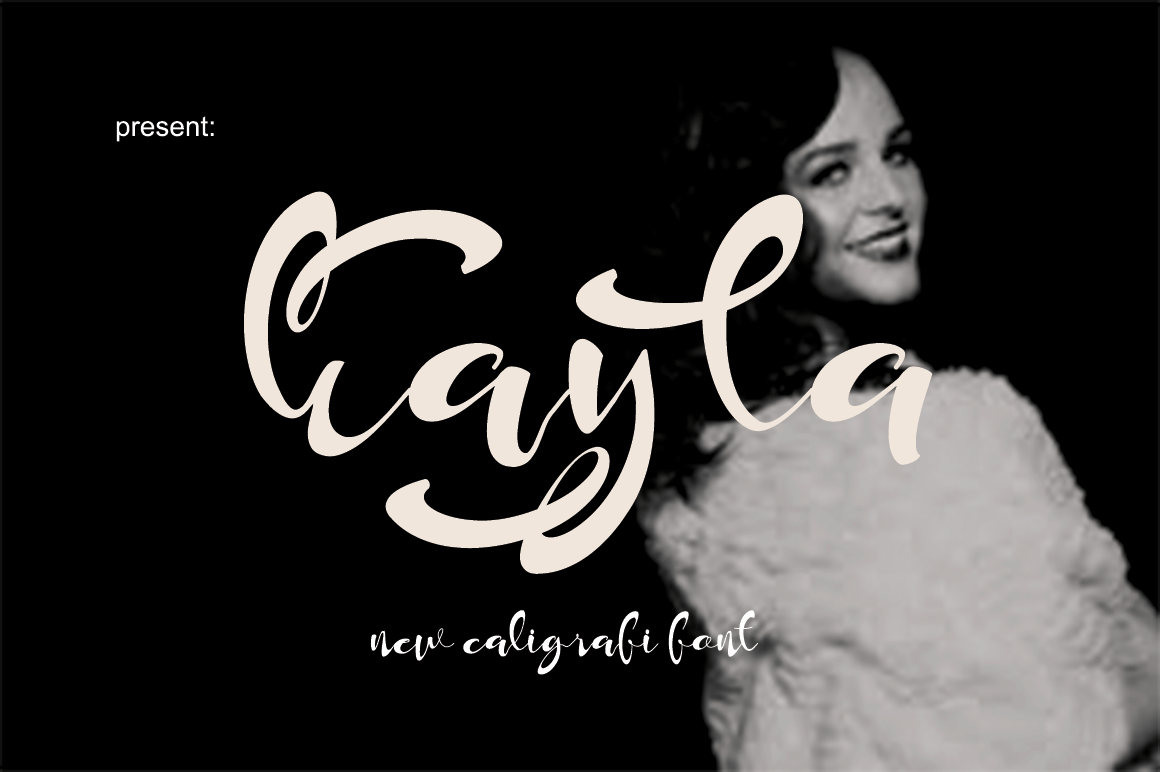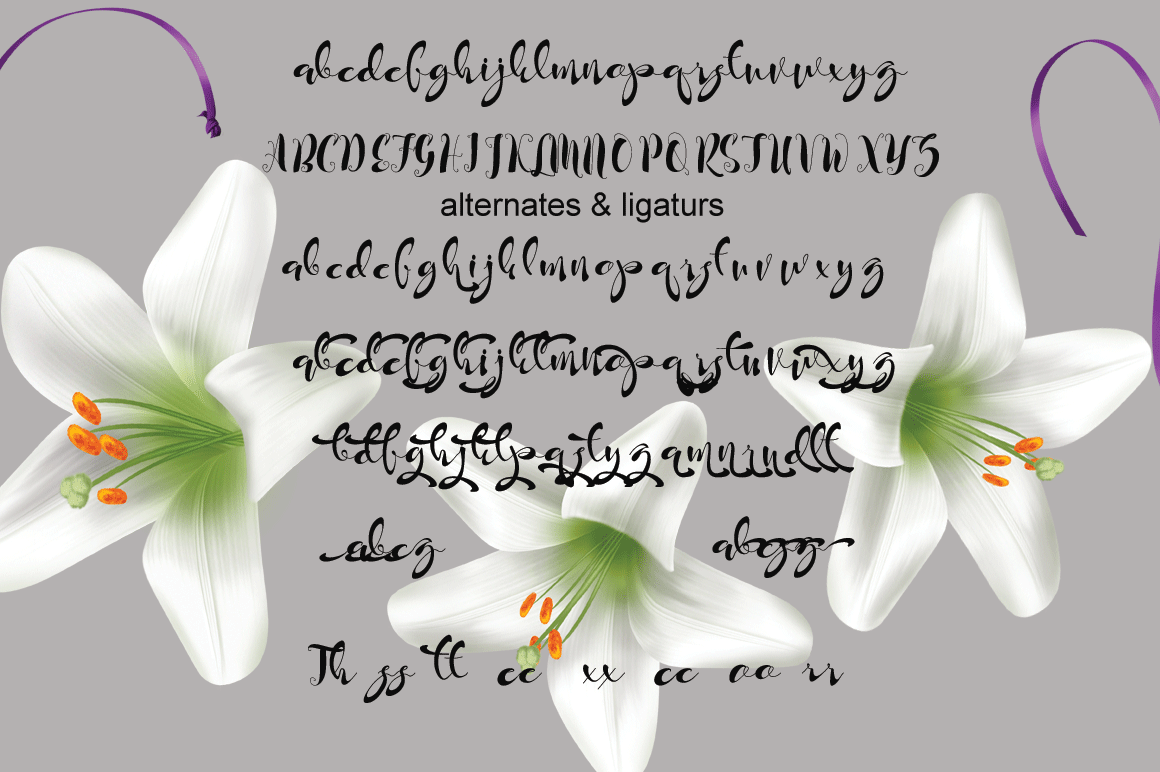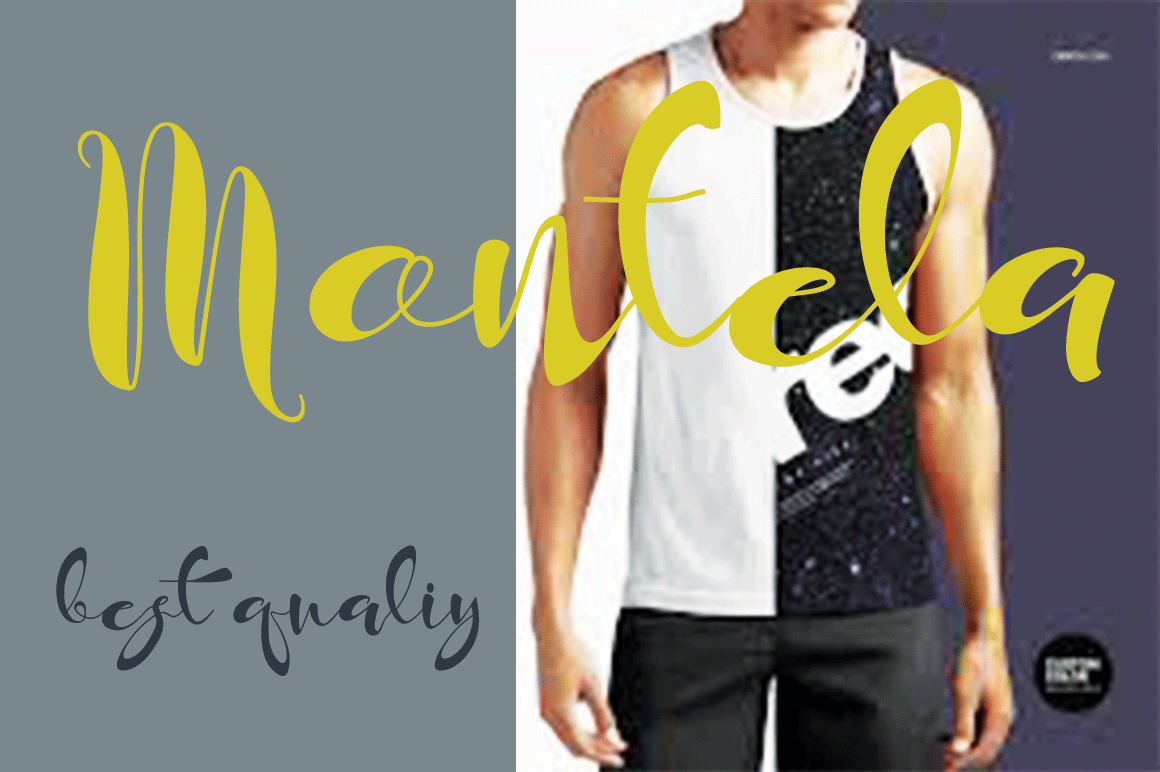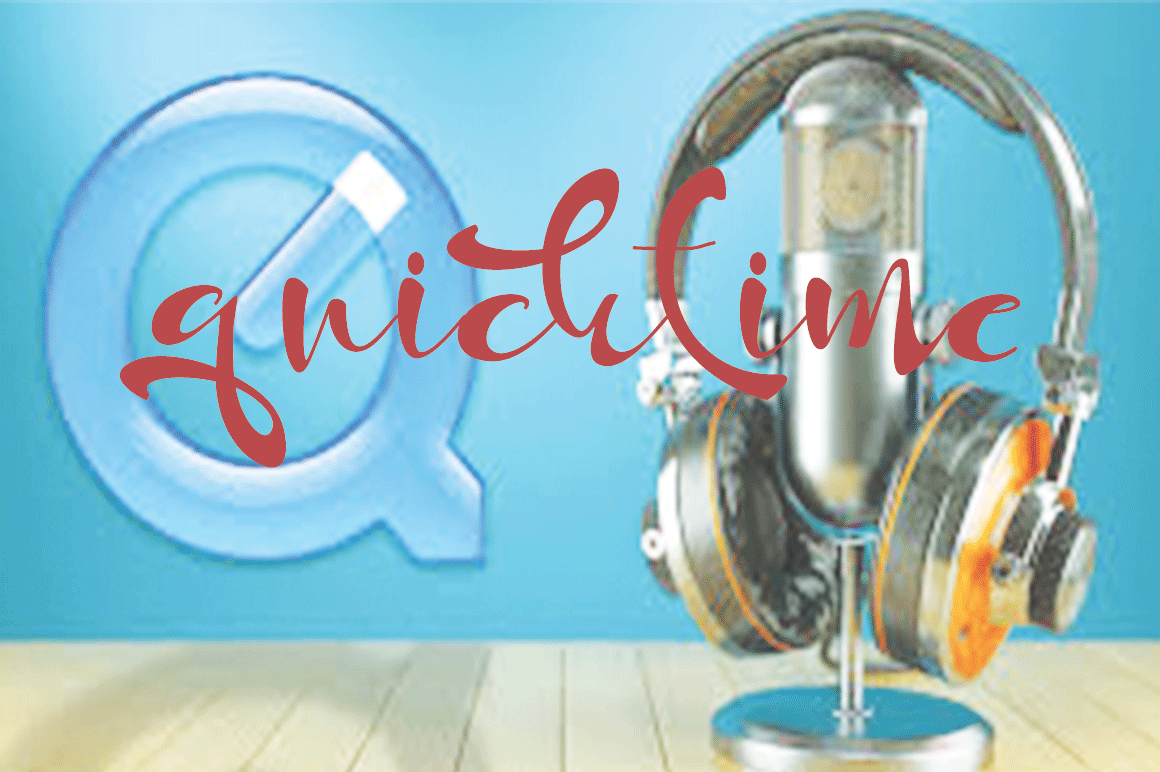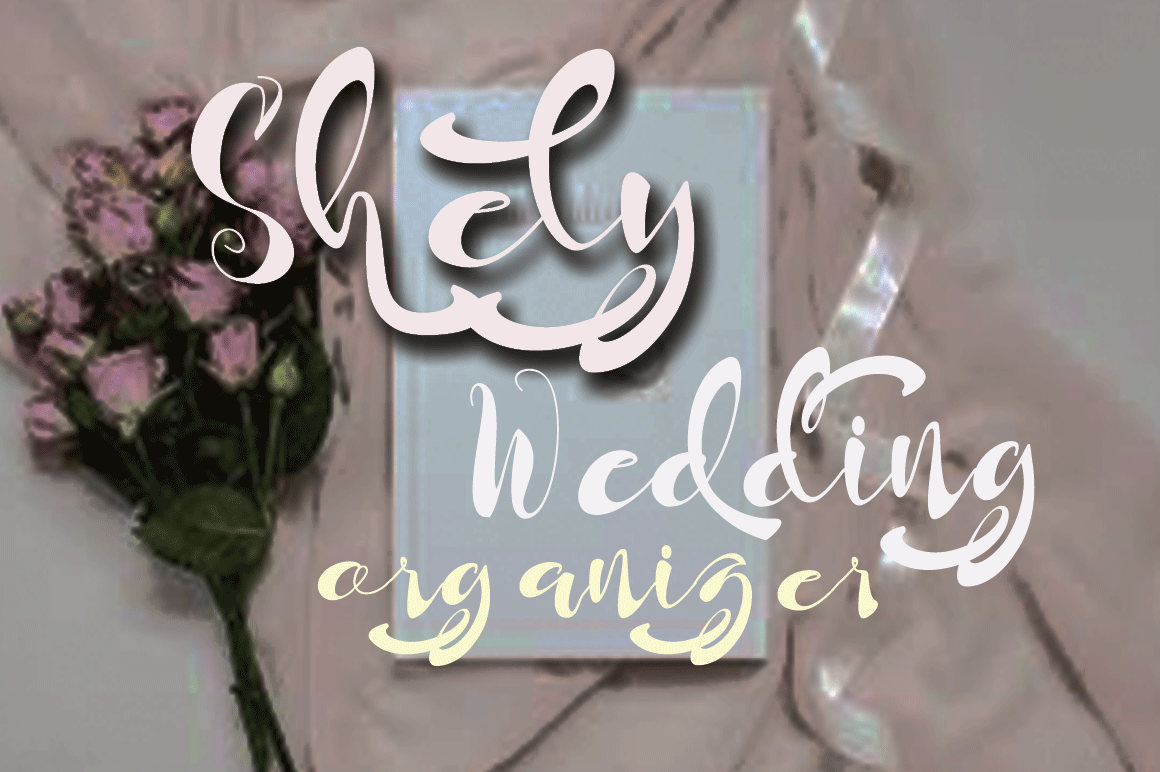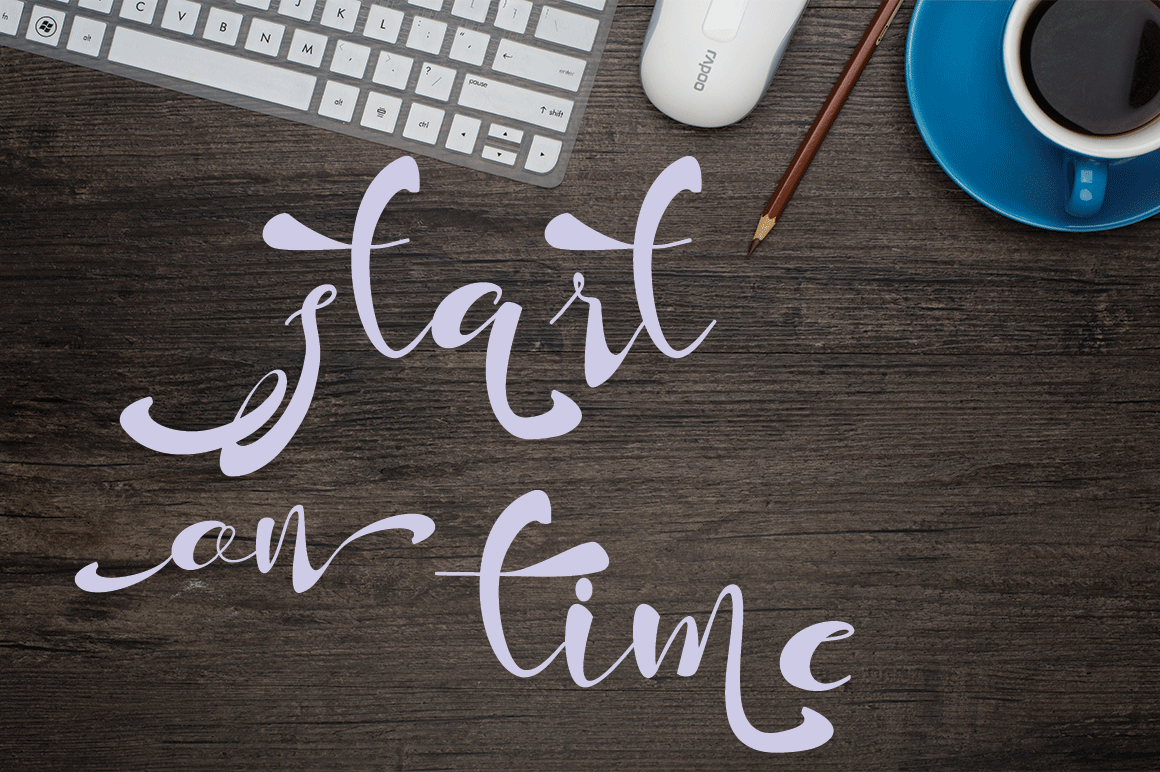
Kayla Font
About Kayla Font
Looking for a fun, hand-lettered font with a casual flair? Check out Kayla!
With a fun style for the lowercase, a hot hand-lettered look to the uppercase, and heavy-to-heavier line weights, it’s the perfect font for crafting, logo design, signs, and more!